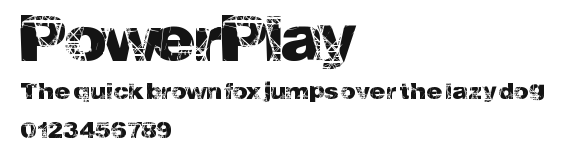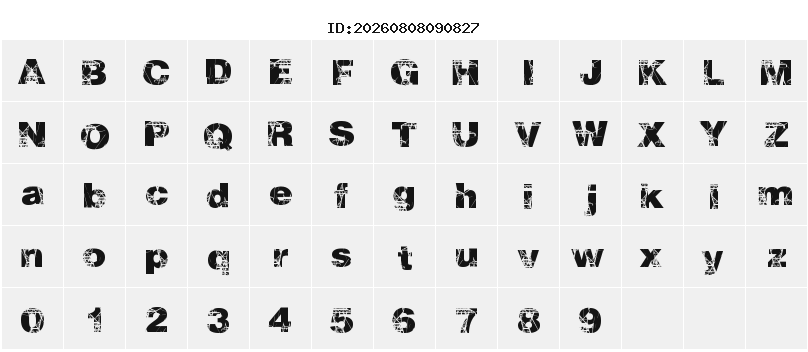
PowerPlay.ttf
• Font Name: PowerPlay
• Designer: Max Infeld
• Manufacturer: Xerographer Fonts
• Description: This font was made in Chico,CA
About PowerPlay.ttf
PowerPlay.ttf is a modern, elegant sans-serif font designed for ultimate readability and visual harmony. Perfect for branding, headlines, web design, and print materials.